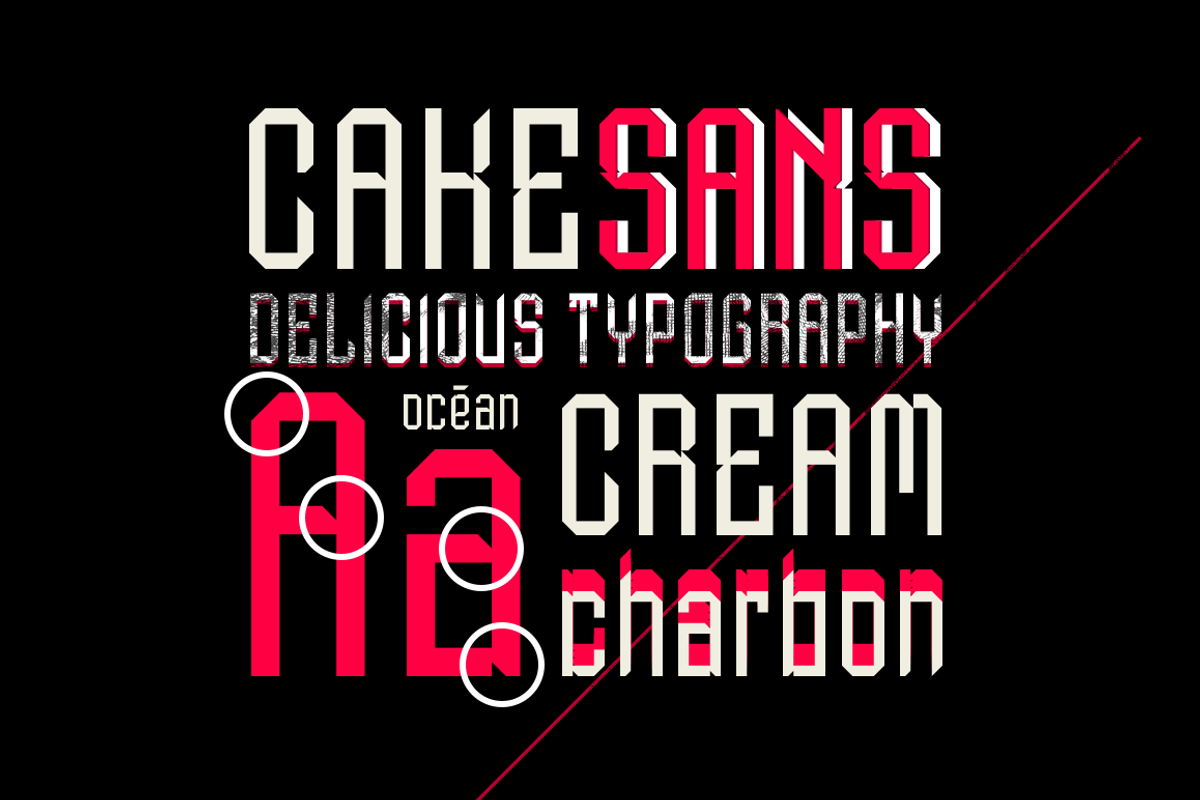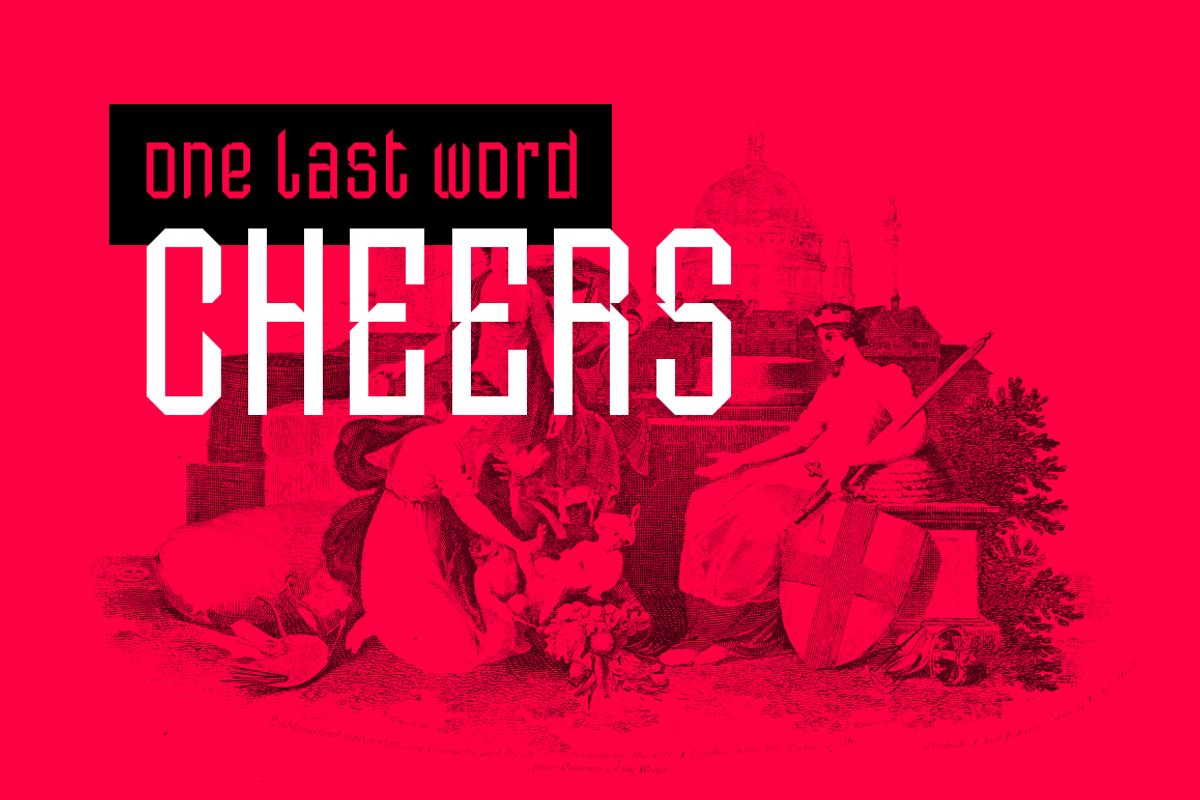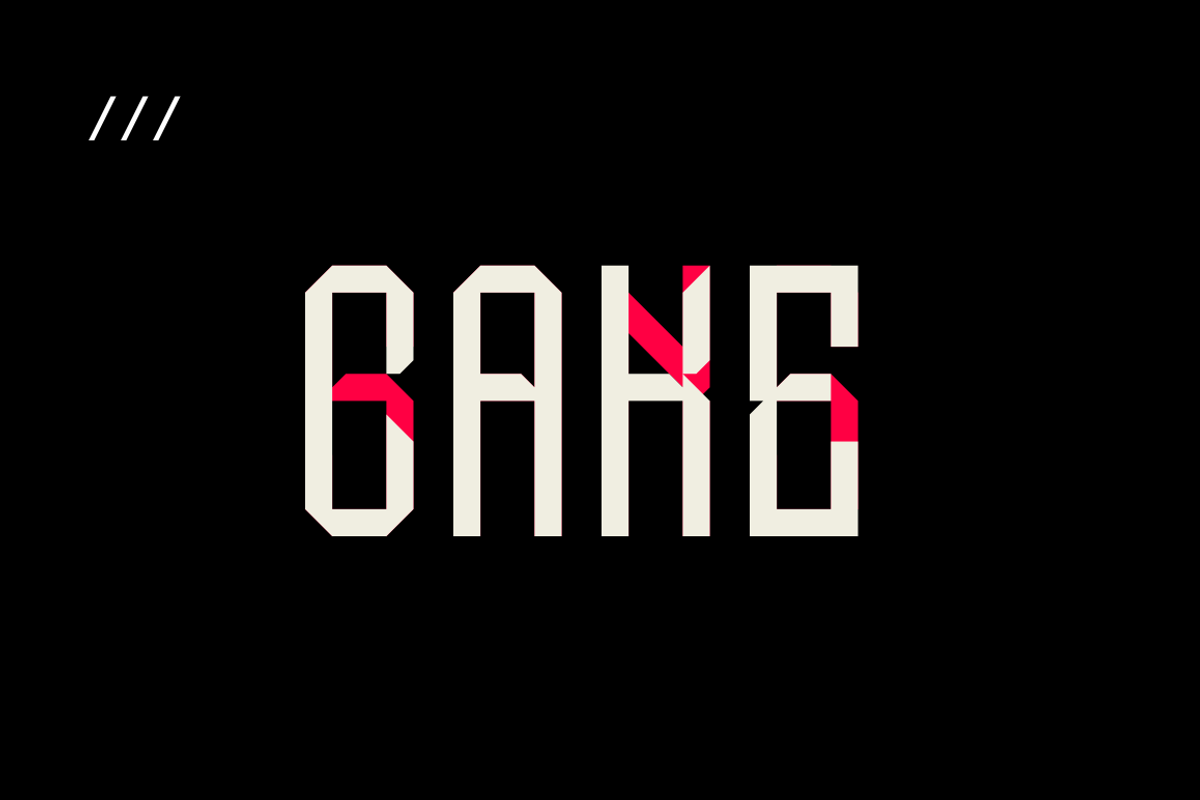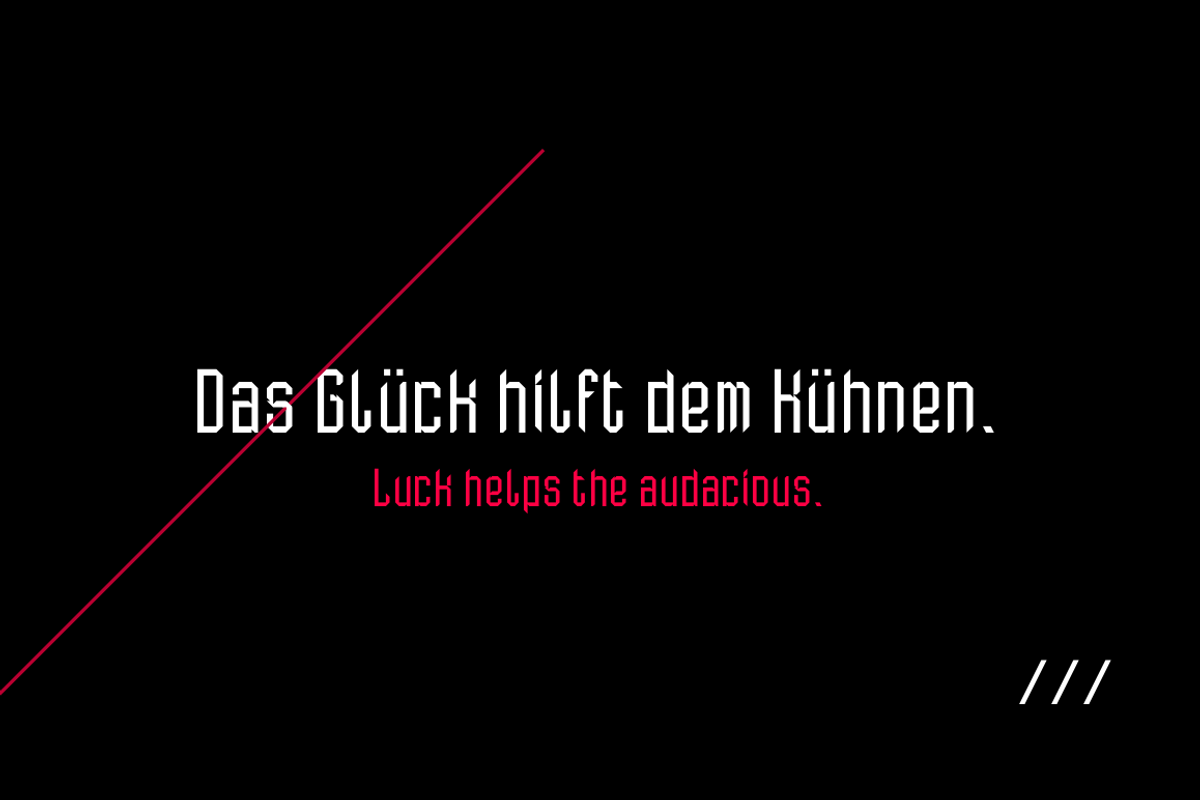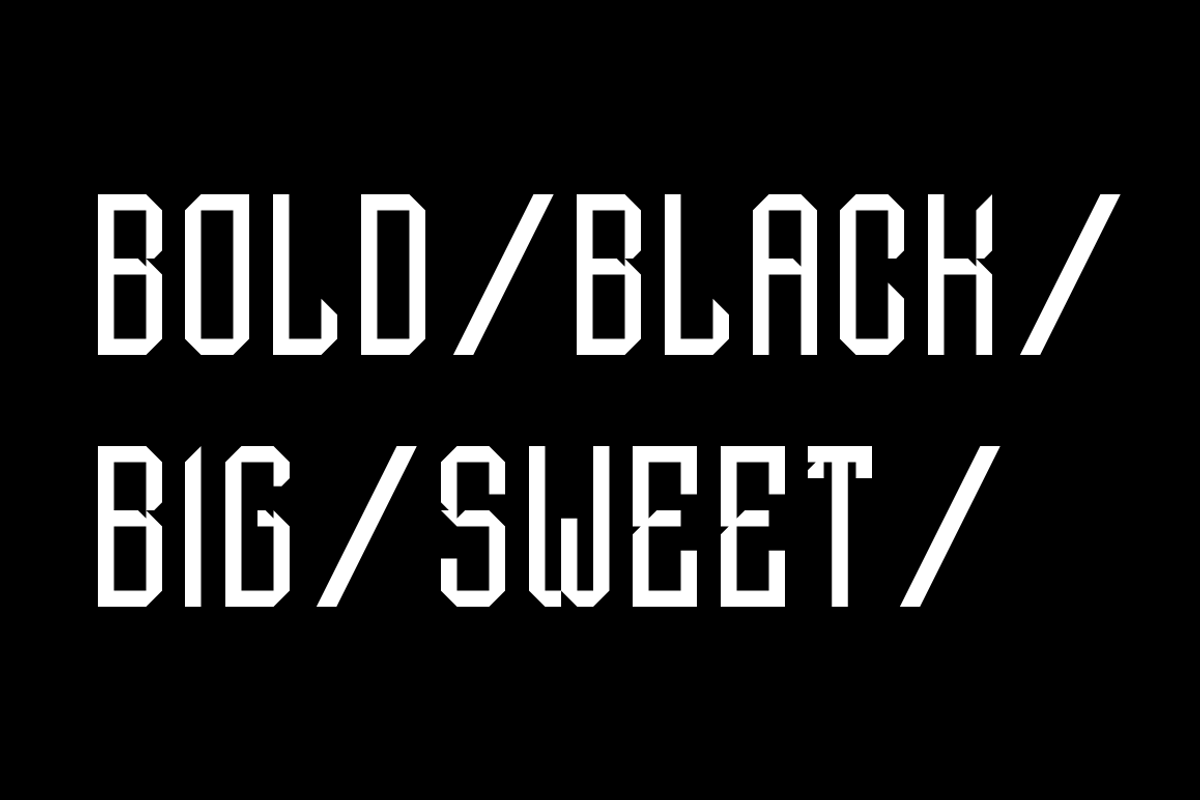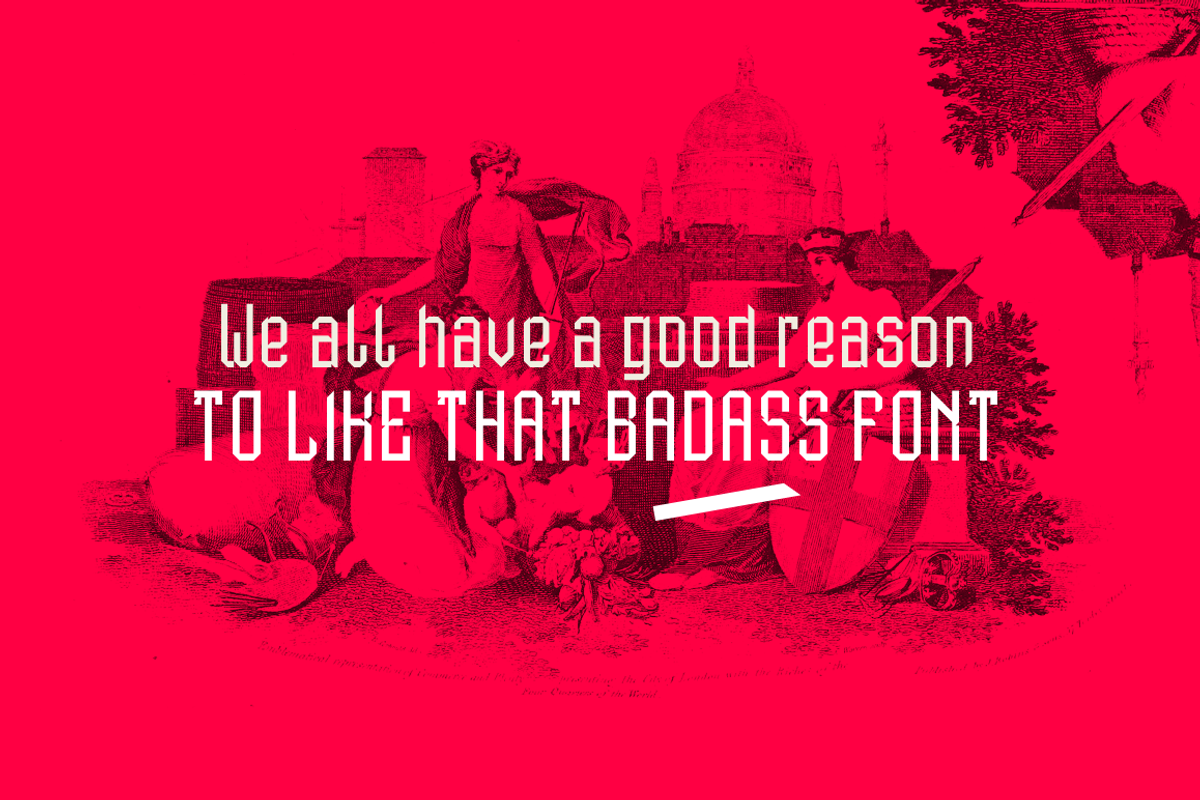
CAKE SANS - font.
CAKE SANS - font. by David is Creative is a font selected for branding, posters, packaging, typography.
- 206 glyphs / accents and misc / easy to use.
Why CAKE SANS - font. is worth a look
CAKE SANS - font. by David is Creative fits naturally into Branding, posters, packaging, typography.